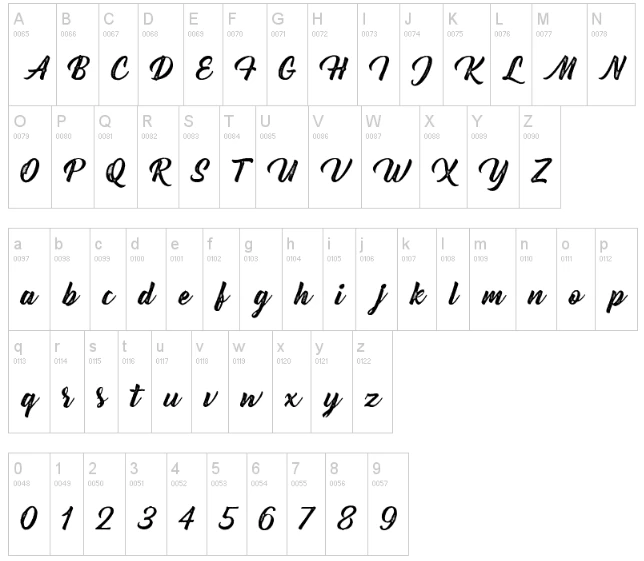
Bernadette Rough is a lovely brush and script typeface. Bernadette Rough is the font family for this typeface. This typeface belongs to the Regular subfamily of fonts. Bernadette Rough is the full name of this font. BernadetteRough is the Postscript font name for this typeface. Bernadette Rough Typeface is a unique brush and script font. It’s classic, but it’s also cool! It includes an additional 80 glyphs as well as contextual ligatures. The font is designed and published by stereotype.
Packaging, titles, posters, headlines, and logos are just a few of the applications for this font. This gorgeous font blends in with almost any color and background, which is great. The font is perfect for usage in ads and on YouTube channels.
NameBernadette Rough
StyleScript
DesignerStereotype